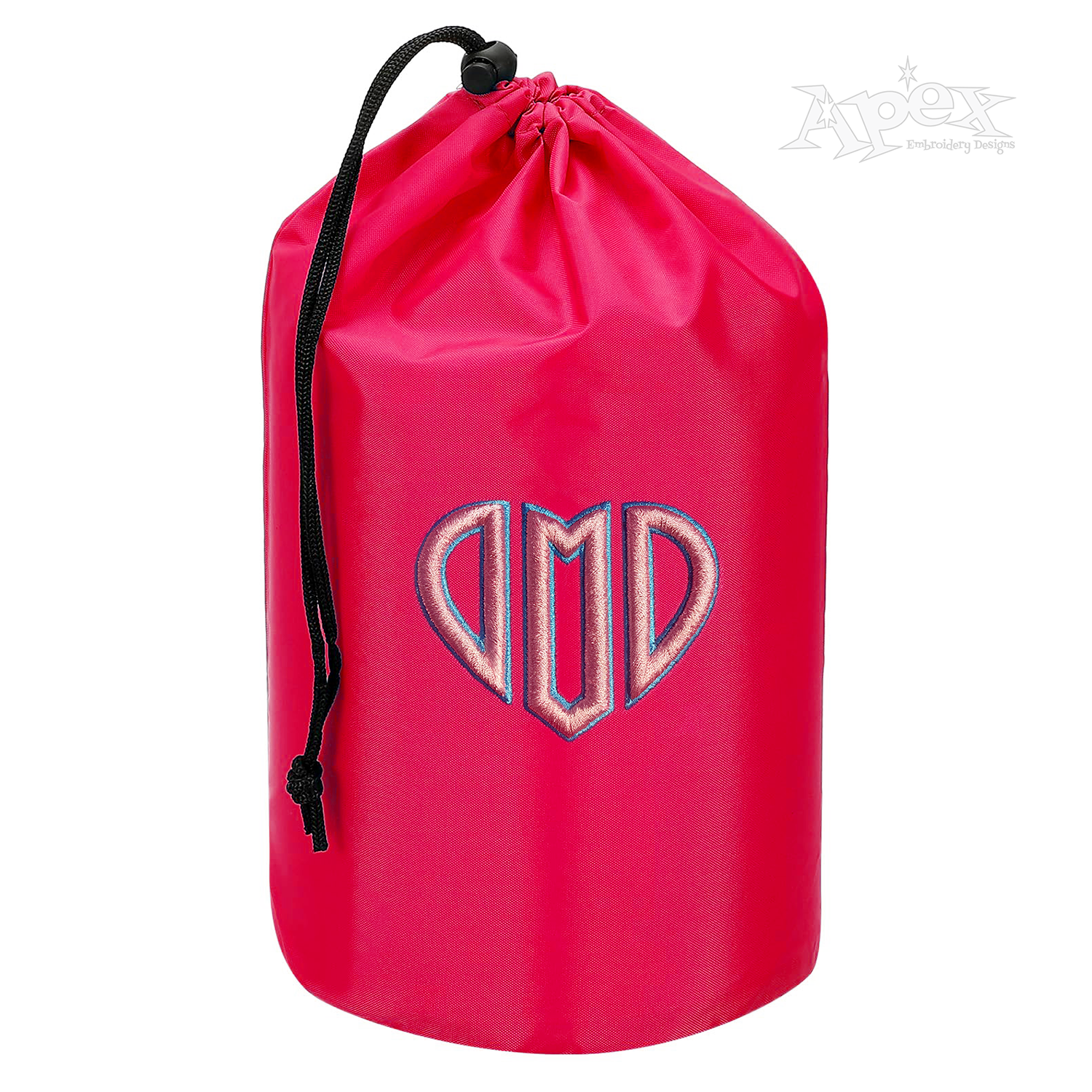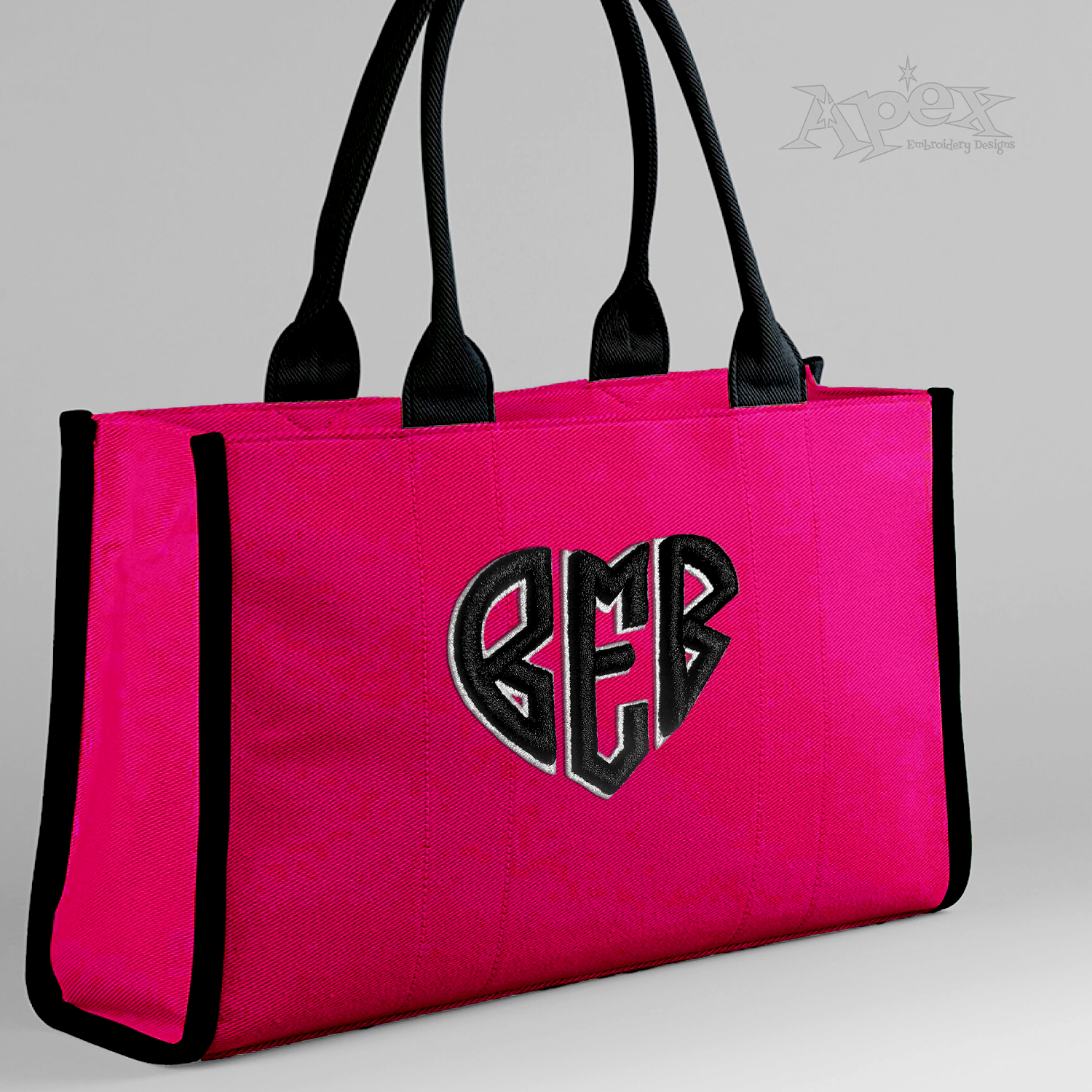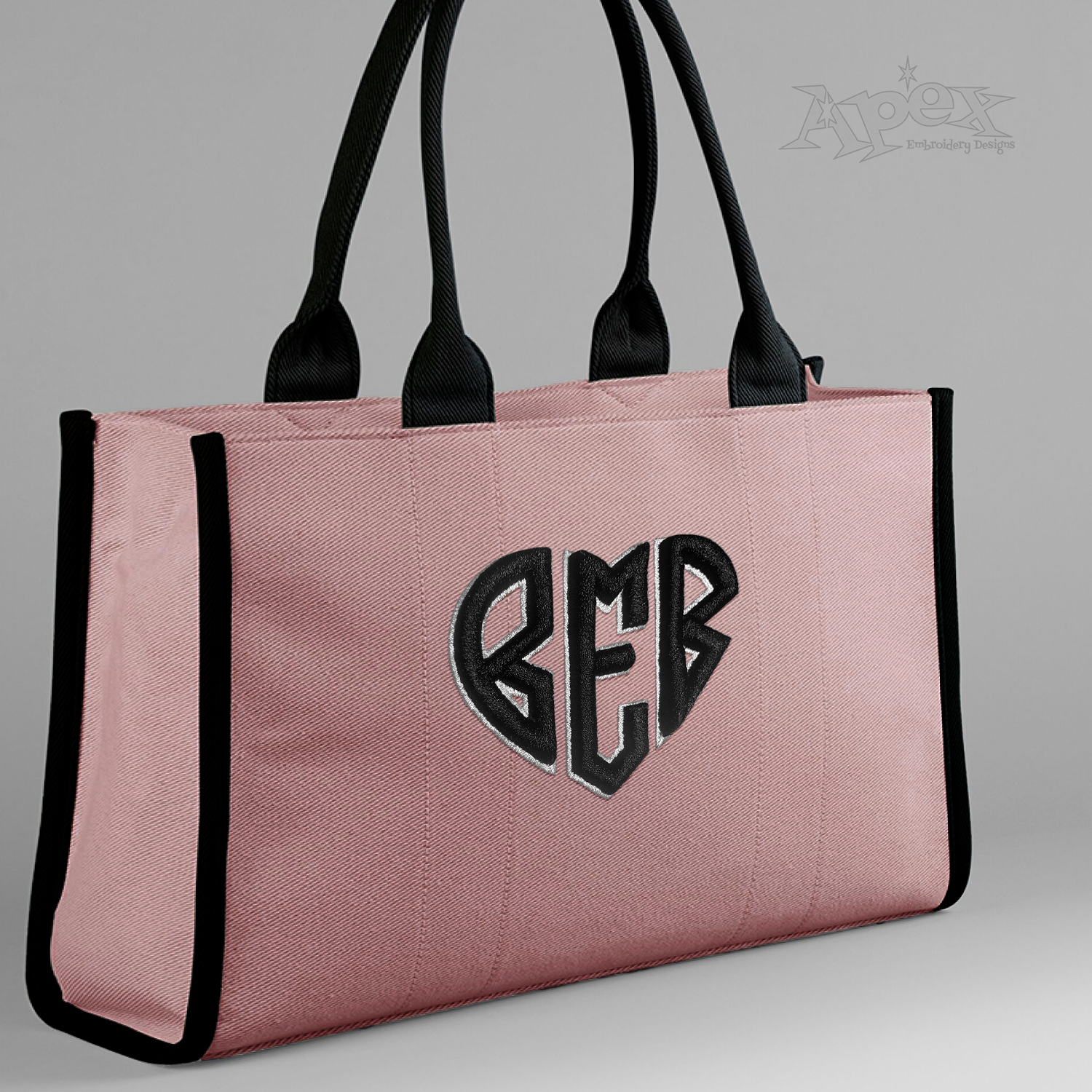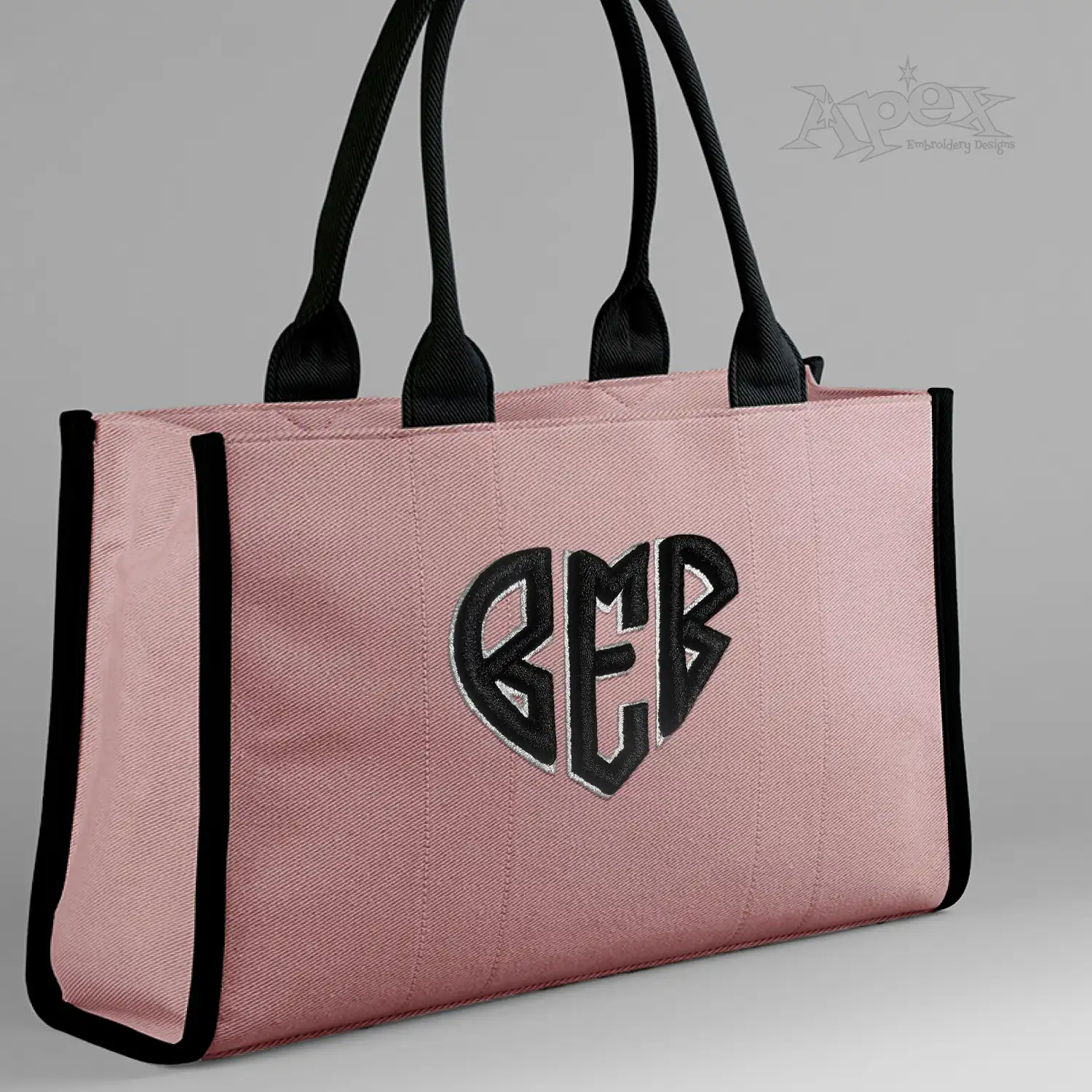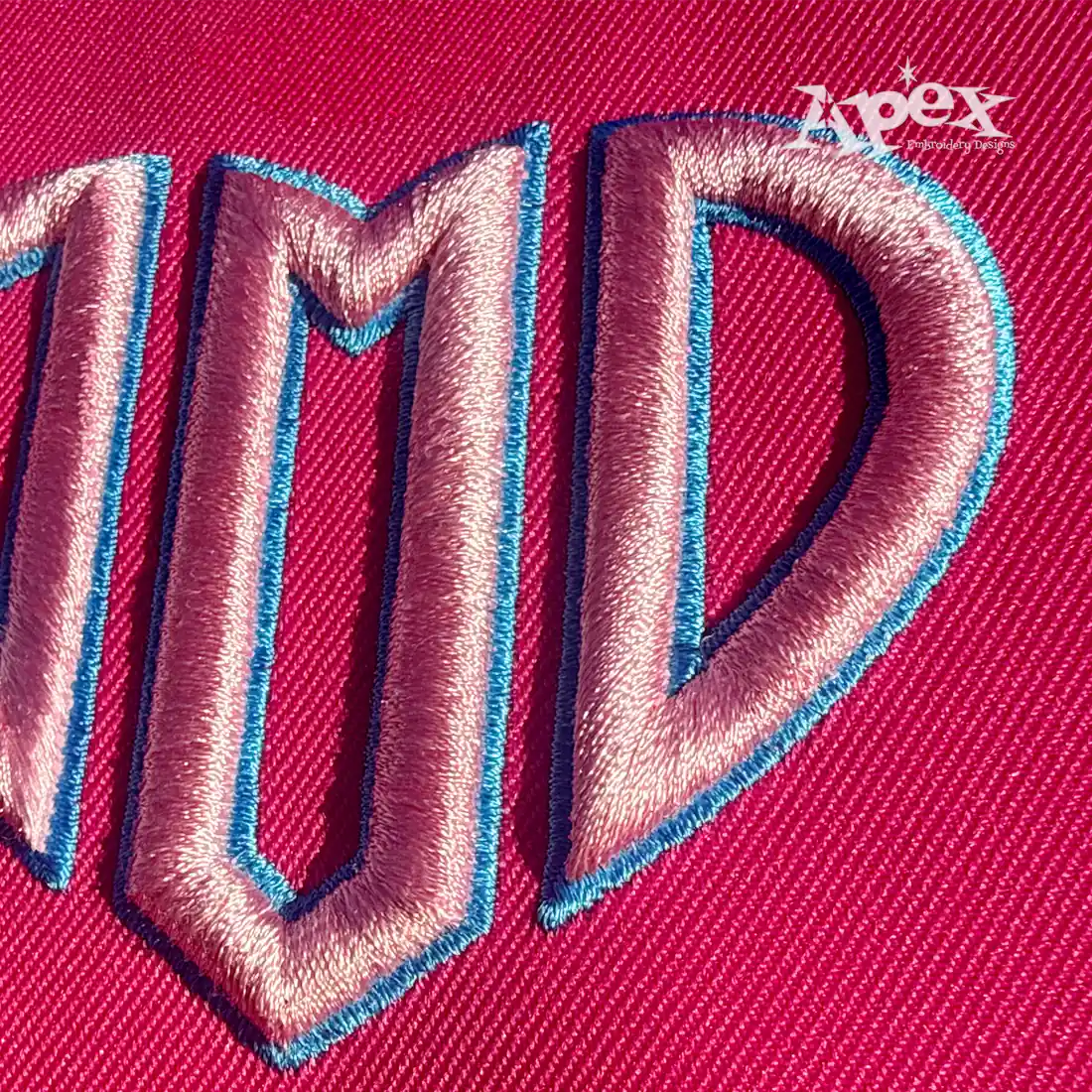
Heart Monogram 2-color 3D Puff Embroidery Font
Create clean and stylish lettering projects with this 2-color Heart Monogram Embroidery Font. This heart shaped with tail monogram alphabet is designed for machine embroidery and is perfect for personalized Valentine Day initials, wedding names, love monograms, gifts, apparel, home décor, and custom sewing projects.
Font Features
- Heart shaped monogram machine embroidery font
- Alphabet lettering sewing pattern
- Great for initials, names, and custom text
- Clean stitched texture for a polished monogram look